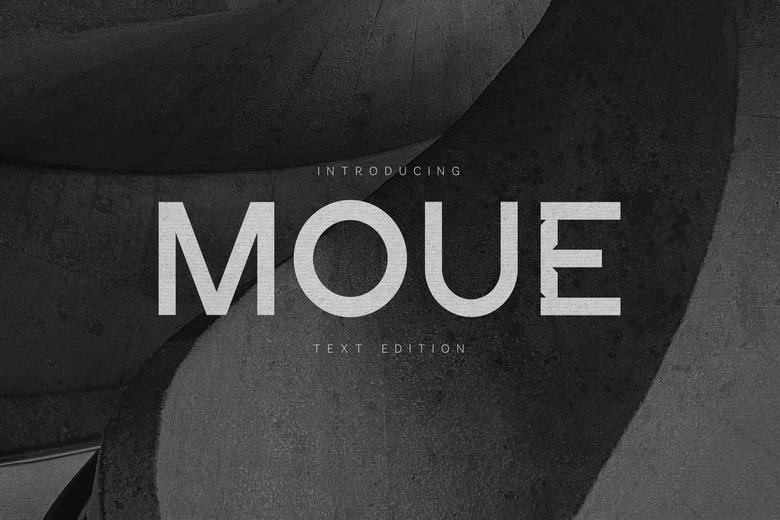
Moue Sans Serif Font
Moue is a modern sans-serif font with a minimal style, made for clear and bold visuals. Its simple lines and balanced shapes make it easy to read, so it works well for branding, editorials, posters, logos, websites, UI design, packaging, and digital content.
This font has a clean and confident look that stands out in large headlines and still looks good at smaller sizes. Its flexible design makes it a strong choice for modern branding, creative studios, fashion visuals, and simple layouts.